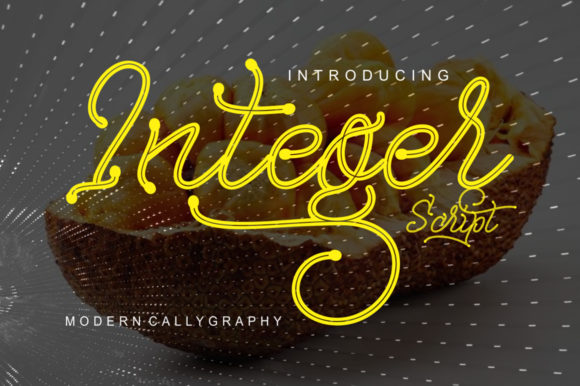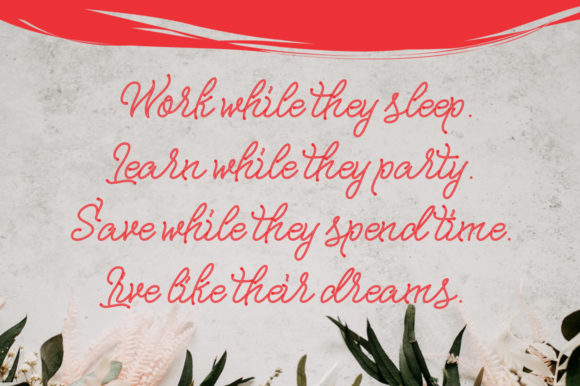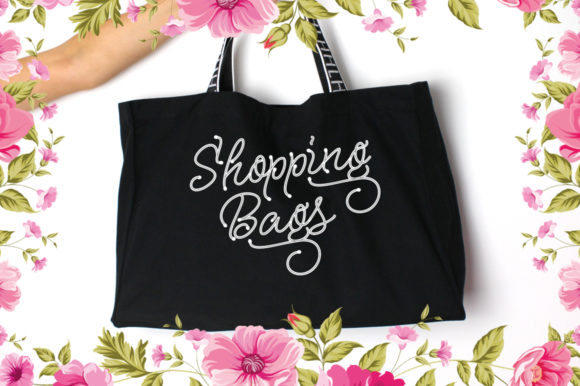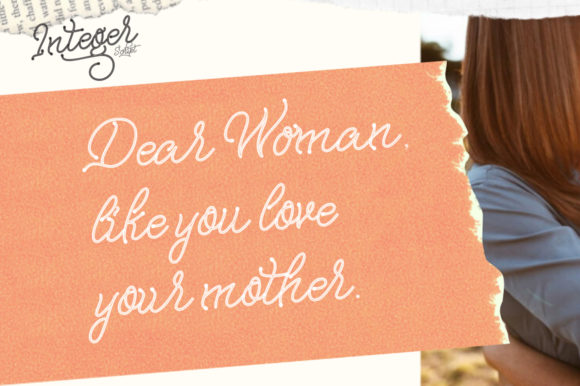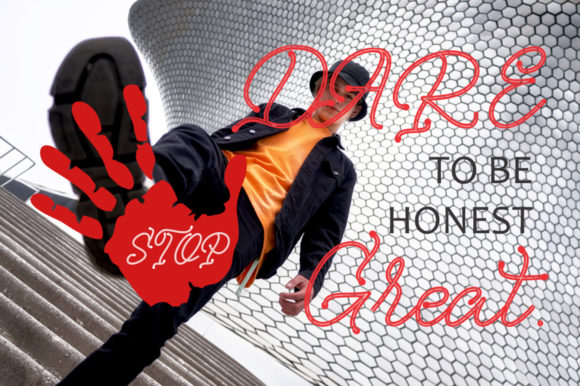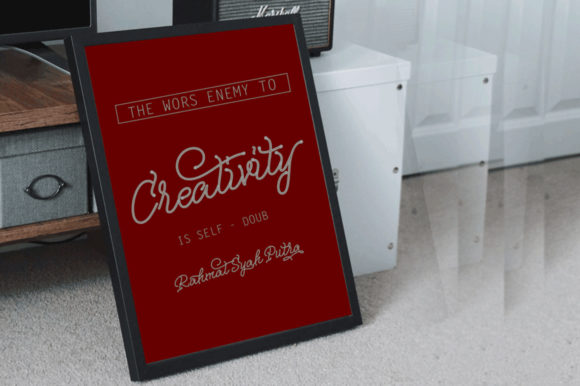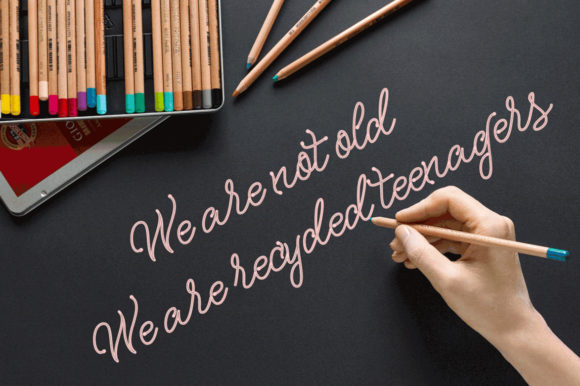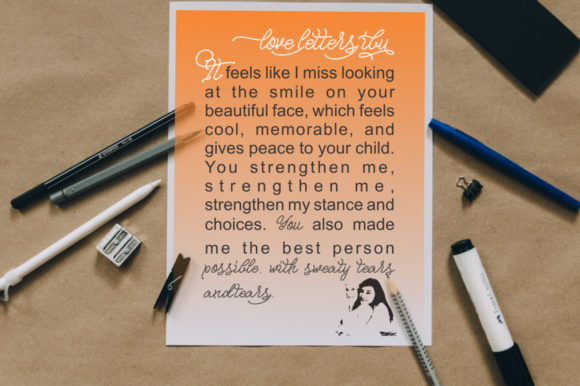
About Integer Font
Integer is a cool, modern and cursive script font. It has beautiful and well balanced characters and as a result, it matches a wide pool of designs. This font is PUA encoded which means you can access all of the glyphs and swashes with ease!